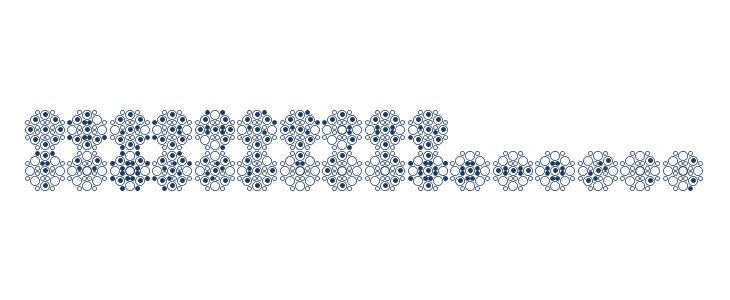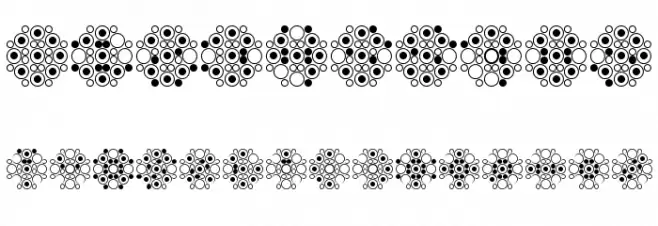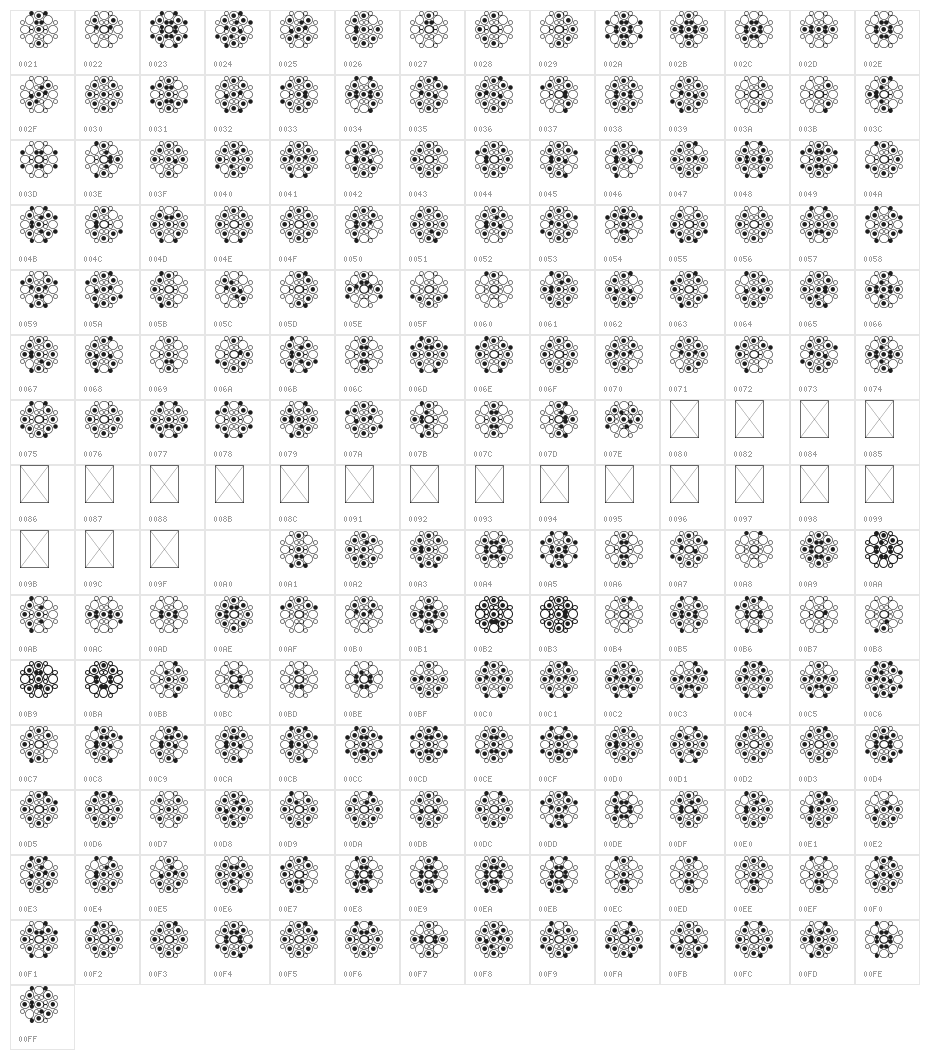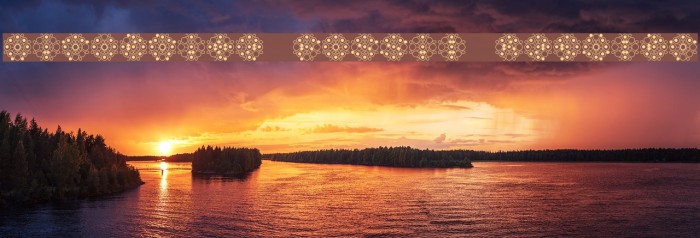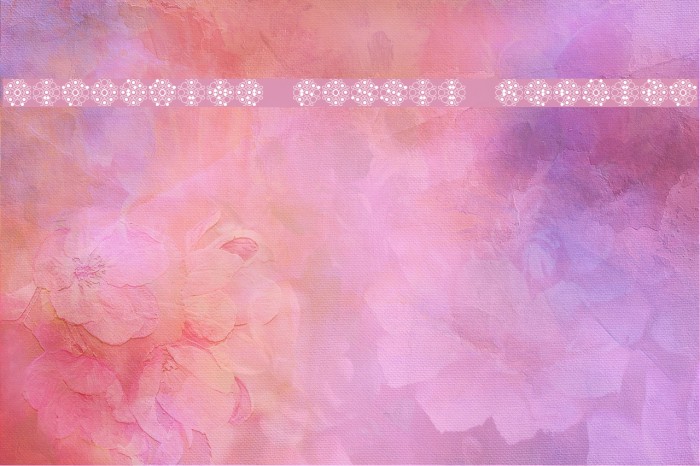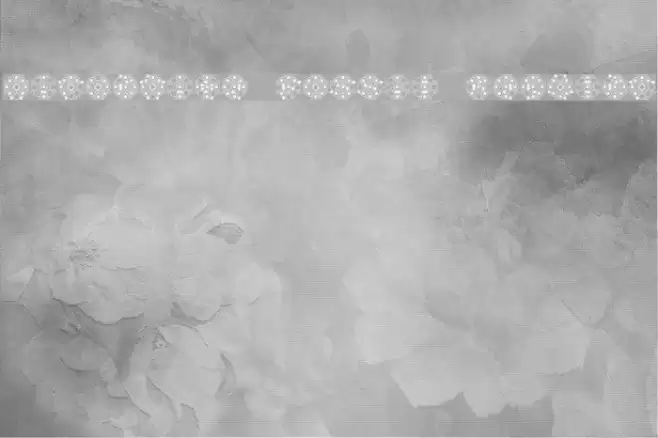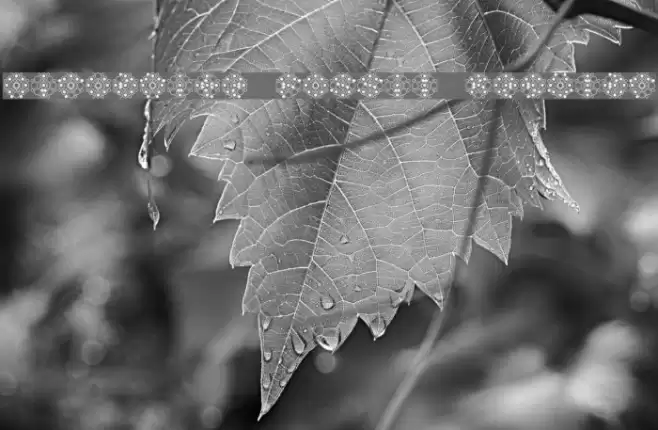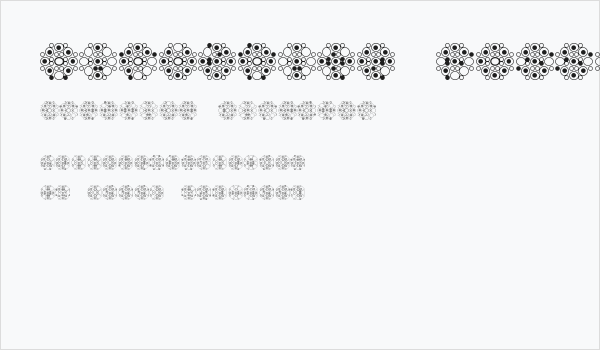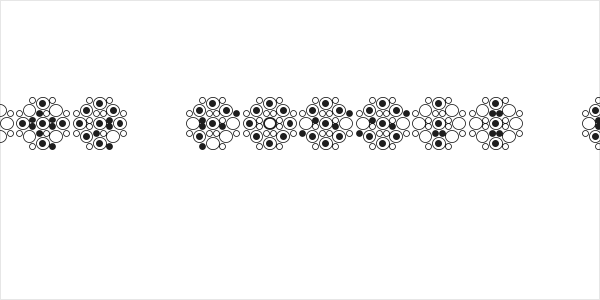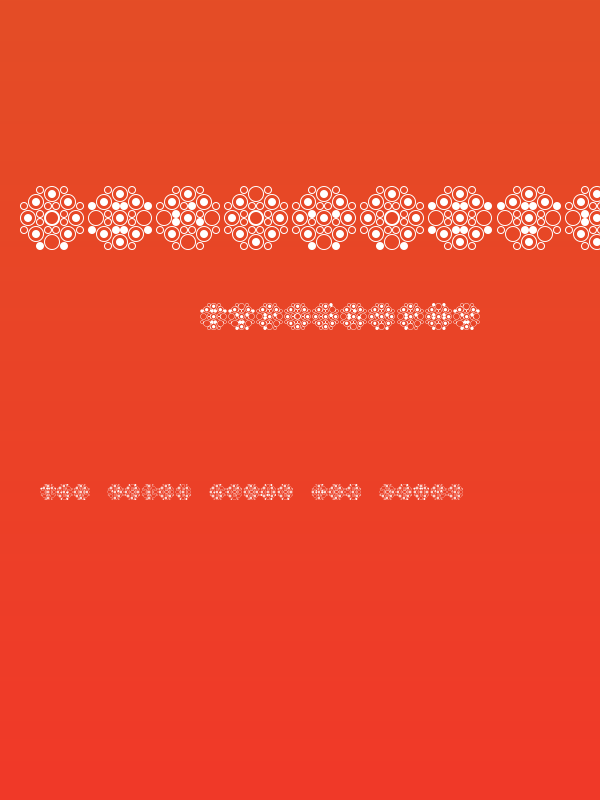
Nirvanite Fossil Regular Font
Nirvanite Fossil Regular Description
This design features a series of intricate, circular patterns that resemble fossilized imprints. Each character is represented by a unique arrangement of circles and dots, creating a visually complex and decorative appearance. The design is consistent across all rows, maintaining a uniform style that emphasizes symmetry and repetition. The patterns are monochromatic, using black and white to highlight the detailed structures within each character. This style is highly decorative, making it suitable for artistic and ornamental purposes rather than traditional text representation.
| Use Case | Artistic projects, decorative borders. |
| Proposed Projects | Ideal for decorative borders, artistic projects, or ornamental design elements. |